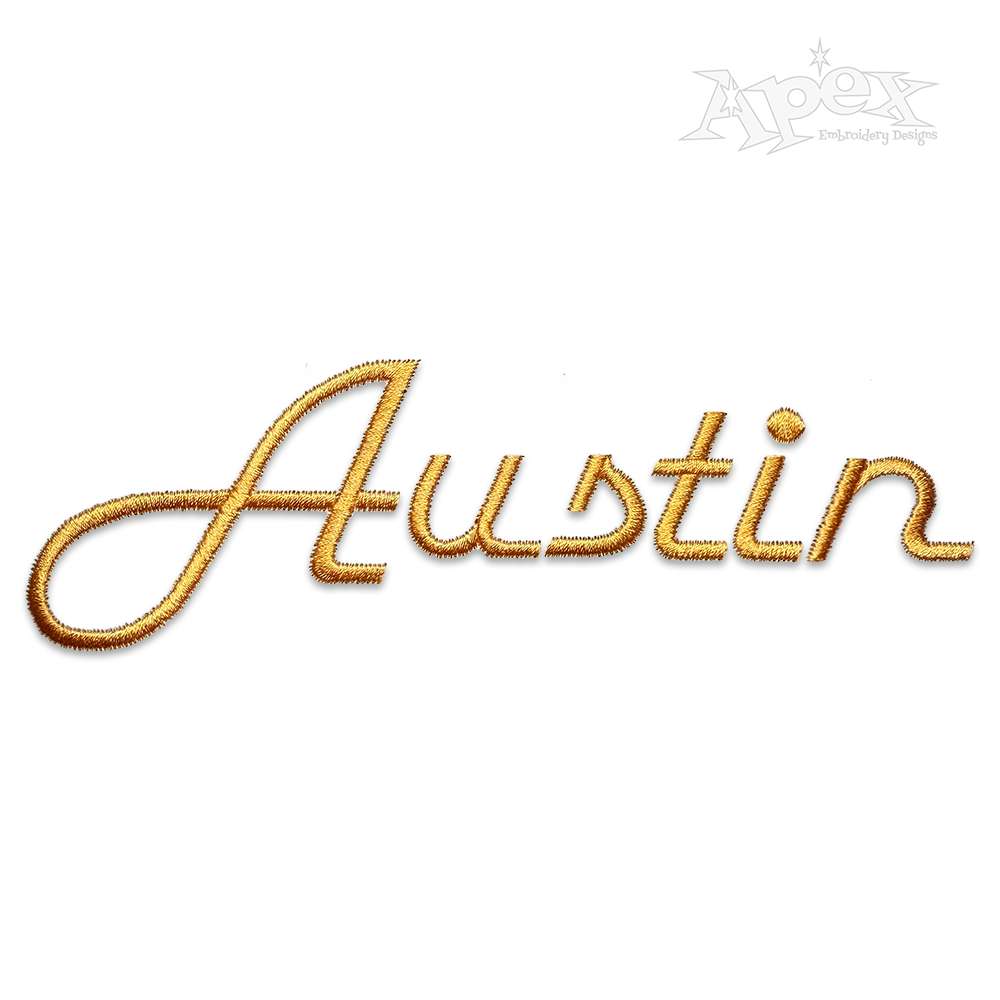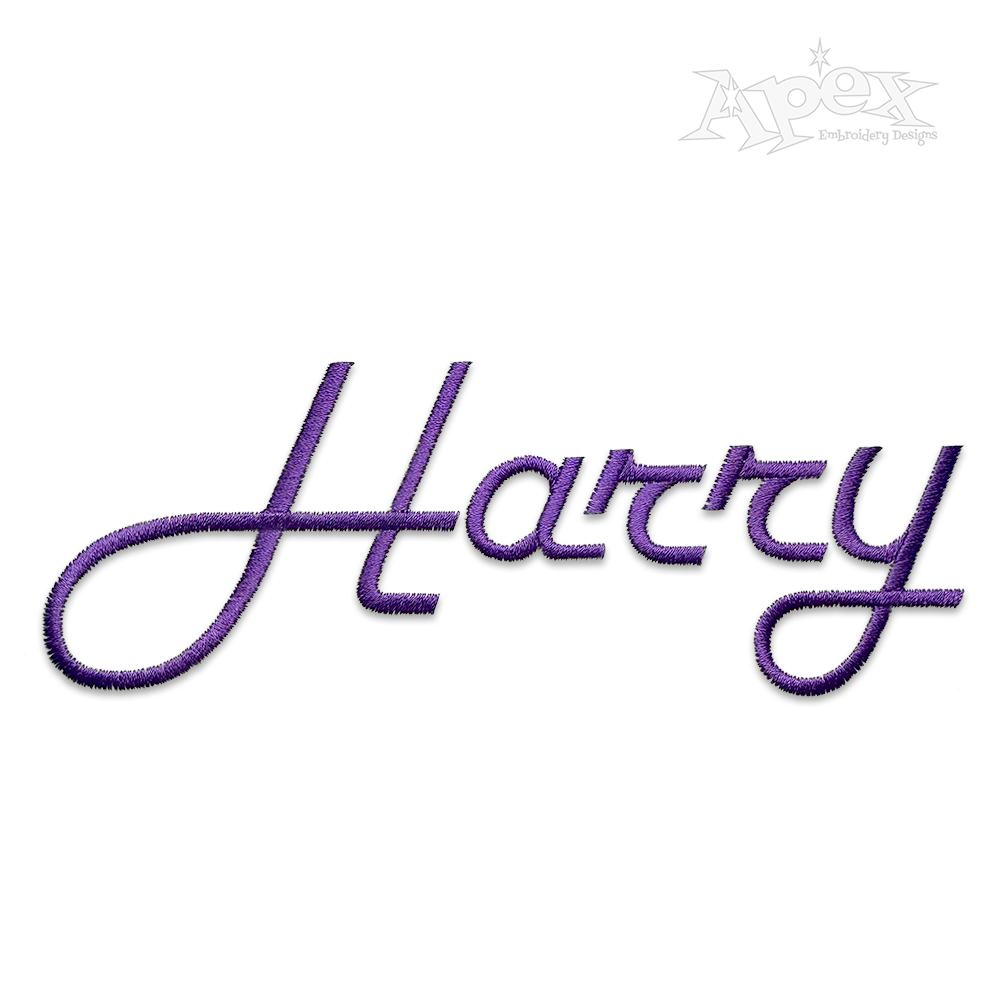
Nifty Fifties Embroidery Font
Drawn from the spirited, carefree optimism of mid-century typography, the Nifty Fifties Embroidery Font brings the golden age of retro design straight to your embroidery machine. When digitizing this alphabet, our focus was on capturing the jaunty tilt, bold sweeps, and playful curves that defined 1950s soda fountains, bowling leagues, and neon signage. Rendered entirely in fluid, polished satin stitches, every glyph glides effortlessly across fabric, imparting a nostalgic luster and charismatic presence that instantly elevates casual apparel, bespoke resort wear, and custom monogramming projects.
Nifty Fifties Embroidery Font Craft & Letterform Details
Digitizing a mid-century script requires a delicate balance of nostalgic character and mechanical precision. The letterforms of the Nifty Fifties Embroidery Font feature an animated rhythm, marked by exaggerated entry strokes, cheerful loops, and confident baseline swashes. To honor the hand-lettered signs of the era, stitch directions are carefully angled around every bend to reflect natural light, giving the satin threads the appearance of liquid chrome or glowing neon.
Scaling wide script letters up to a 6-inch height often poses a structural challenge in embroidery, as excessively long satin stitches risk snagging or puckering delicate fabrics. To solve this, our master digitizers crafted the 6-inch set using an artisanal double-step satin technique. By anchoring the stitches at calibrated midpoints without disrupting the seamless visual flow of the letterform, this design delivers bold, three-dimensional volume while maintaining uncompromising washability and lasting heirloom durability.